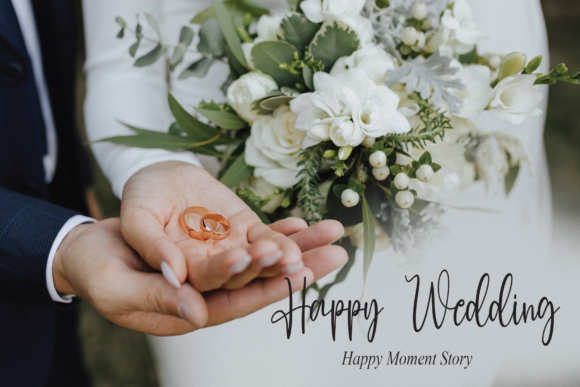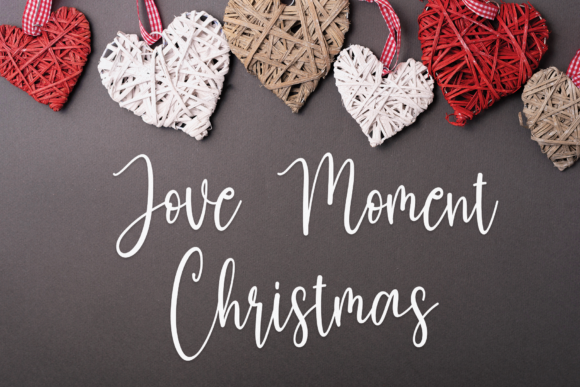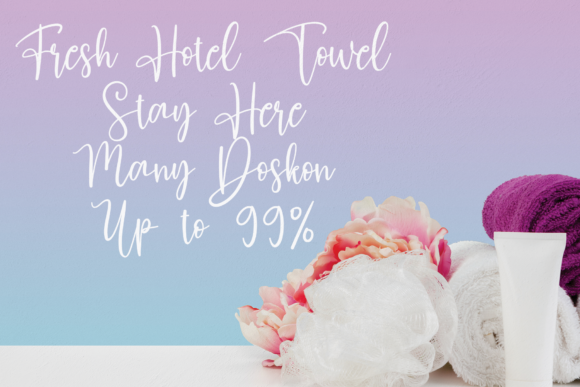
About Merry Christmas Font
Merry Christmas is a script font that gives off exquisite and poetic vibes. Use it for projects that need impressive typography, such as wall displays, wedding invitations, social media post logos, advertisements, product packaging, product designs, labels, photography, watermarks, invitations, stationery, or more.